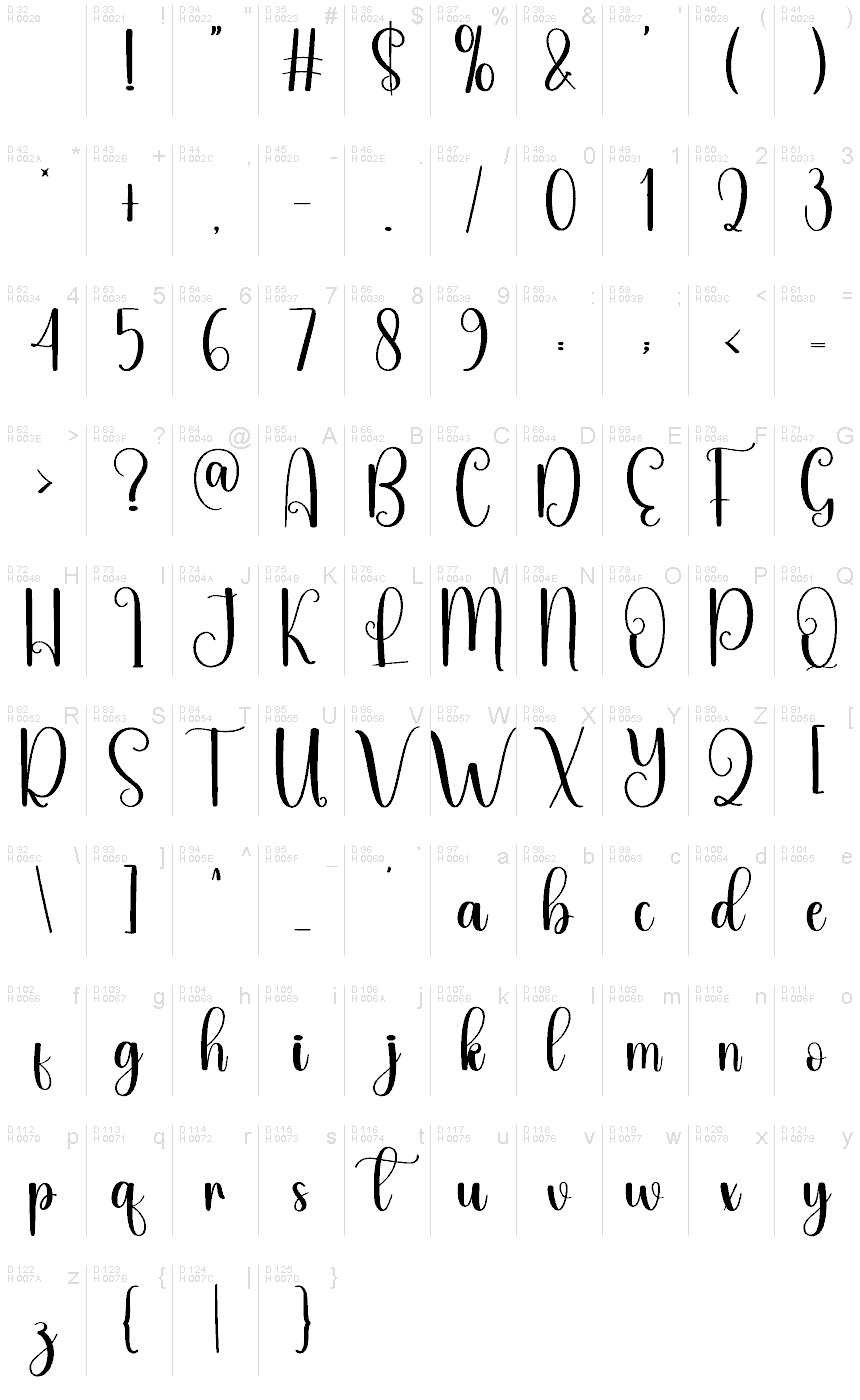
Meetup
Meetup font is a free calligraphy font created by Andi Moz with a unique style. It shares the characteristics of elegance, expression, and modernization that are associated with modern-day calligraphy fonts. Gentle lines accompany short curvy-stroked ends.
The flowing style of the letters makes this font suitable for invitation cards, greeting cards, journaling headers, websites banners, logo designs etc. Use it as well for mobile apps and games to achieve similar elegant and chic styles.